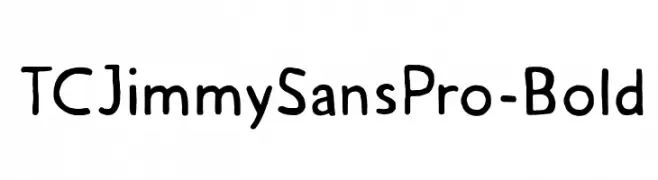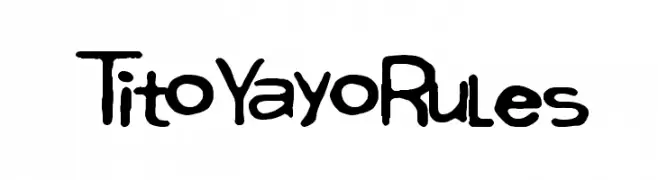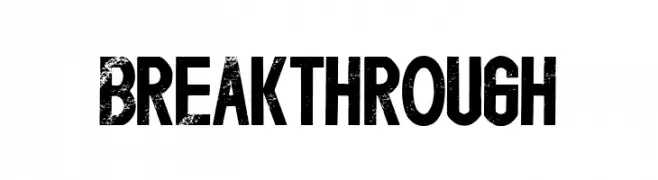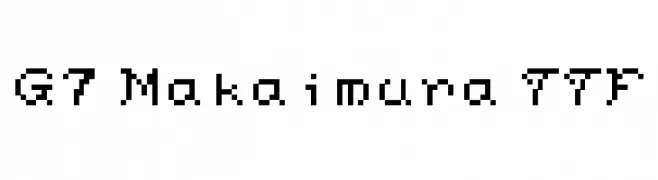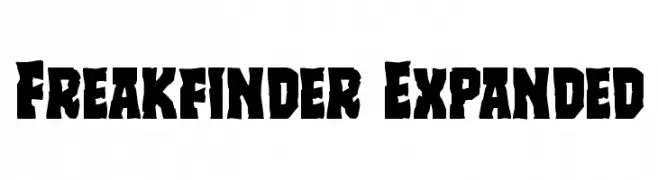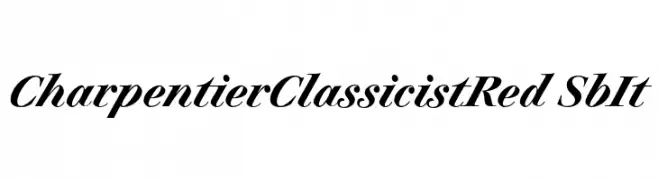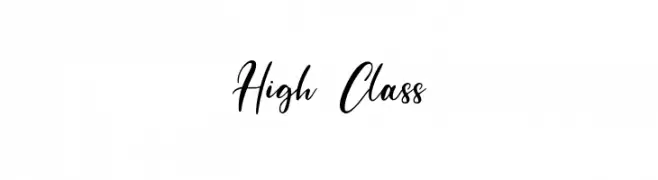
A bold, hand-drawn font with rounded edges and a playful, informal style.
A decorative, gear-like font with an industrial and mechanical aesthetic.
A bold, three-dimensional font with strong shadow effects and a modern, dynamic style.
A playful, hand-drawn font with bold, irregular strokes and a whimsical style.
A bold, distressed font with a vintage, textured appearance.
A pixelated, retro-style font inspired by early digital typography.
A bold, rugged font with jagged edges and a distressed appearance.
An elegant serif font with high contrast and a slight italic slant, perfect for classic and modern designs.
An elegant script font with flowing, cursive strokes and graceful curves.